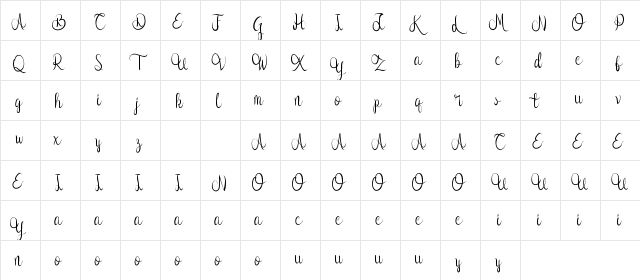
Syllia Demo Regular
| Foundry | Edric Studio |
| Designer | Aghia Nurul Yasmine |
Design Context for Syllia Demo Typeface
Syllia Demo is a composed and adaptable typeface that performs quietly and consistently across a wide range of design contexts.